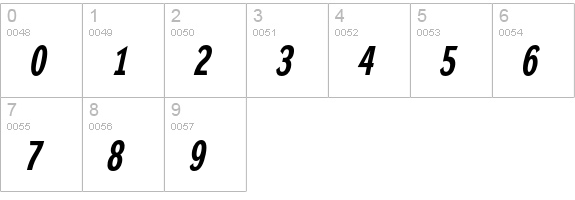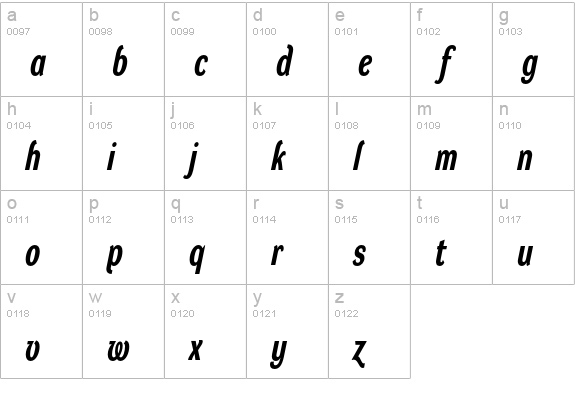
Dynamo Italic H C is a distinctive, italic variant in the Dynamo typeface family \xE2\x80\x94 well suited to design and typography projects.
Dynamo Italic H C is a sleek and modern font that exudes elegance and sophistication. Its italic style adds a sense of dynamism and movement to any design project. The unique design of this font makes it perfect for luxury branding, editorial design, and elegant invitations. What sets Dynamo Italic H C apart is its versatility and adaptability to various design contexts. Whether used for headlines, body text, or graphic elements, this font will make a statement and elevate the visual appeal of any project. And the best part? Dynamo Italic H C is completely free to download at FontsMarket.com. So go ahead and add this stunning font to your collection today and take your designs to the next level!